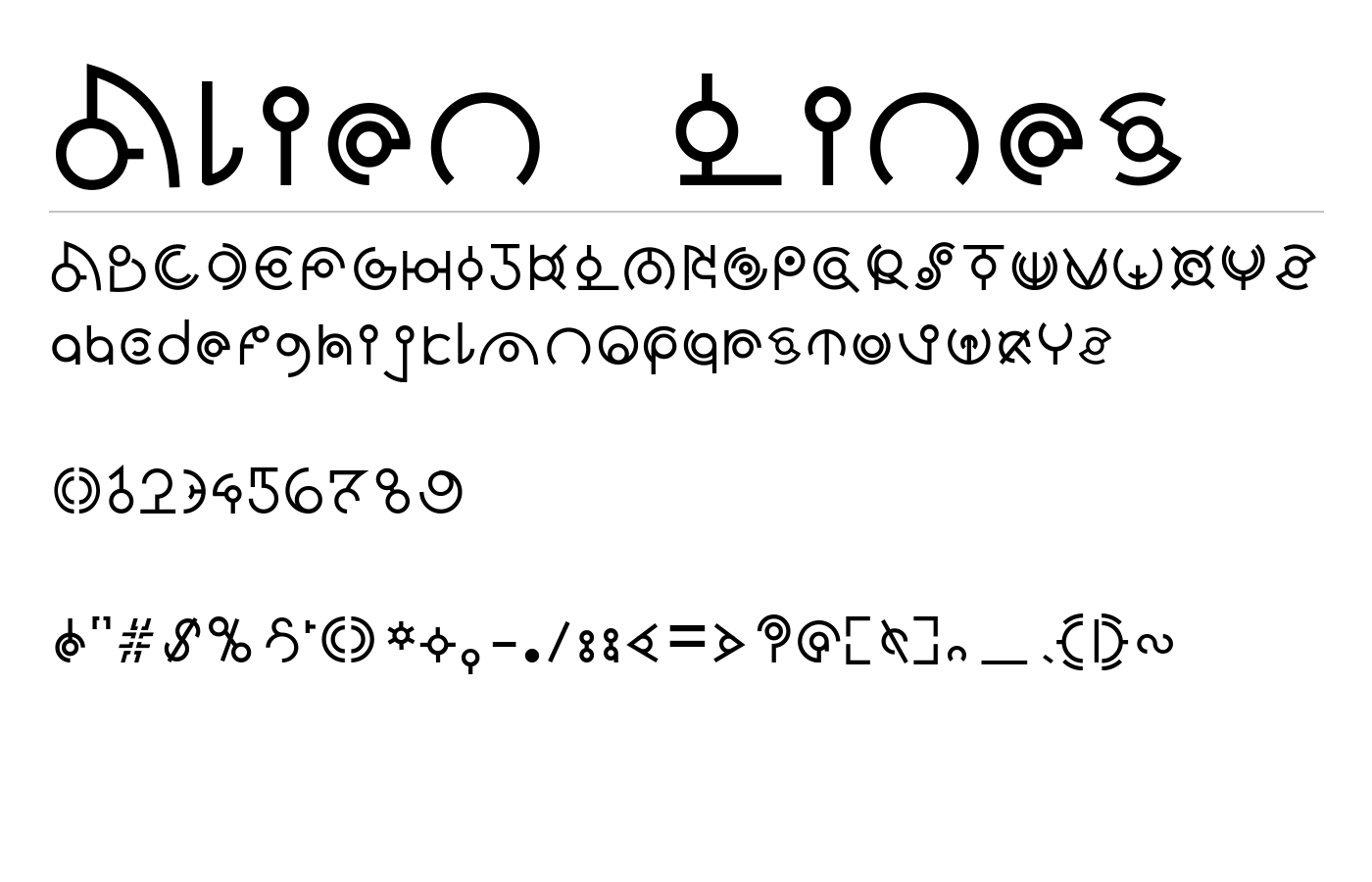
Alien Lines is a futuristic sans serif font characterized by thin, clean lines and geometric shapes that create an otherworldly, sci-fi aesthetic. Its unique letterforms, featuring circular motifs and unconventional strokes, give it a modern and playful personality, making it ideal for technology, gaming, and creative branding projects that seek to evoke innovation and mystery. This font works best in headlines, logos, and posters where its distinctive style can shine and capture attention.
Alien Lines Font